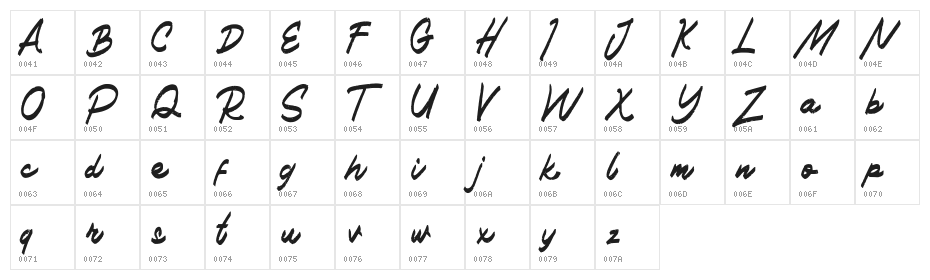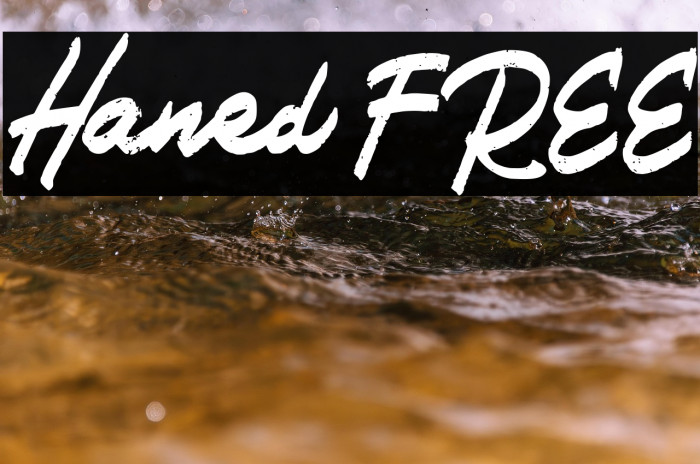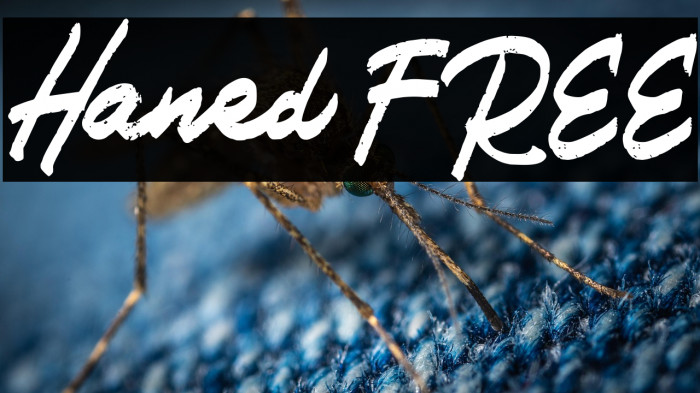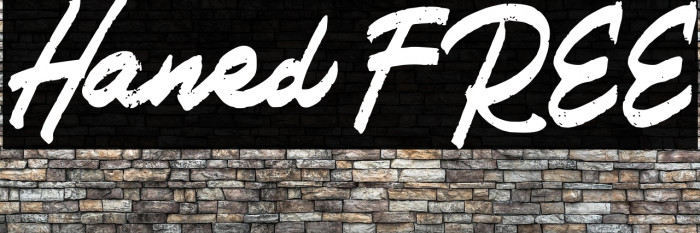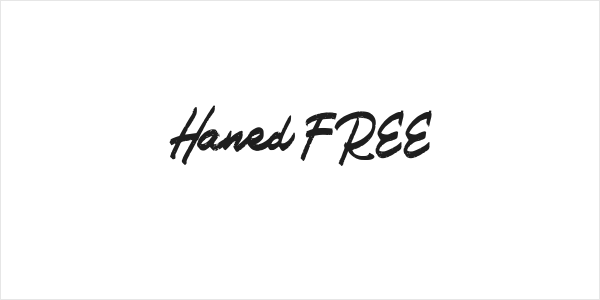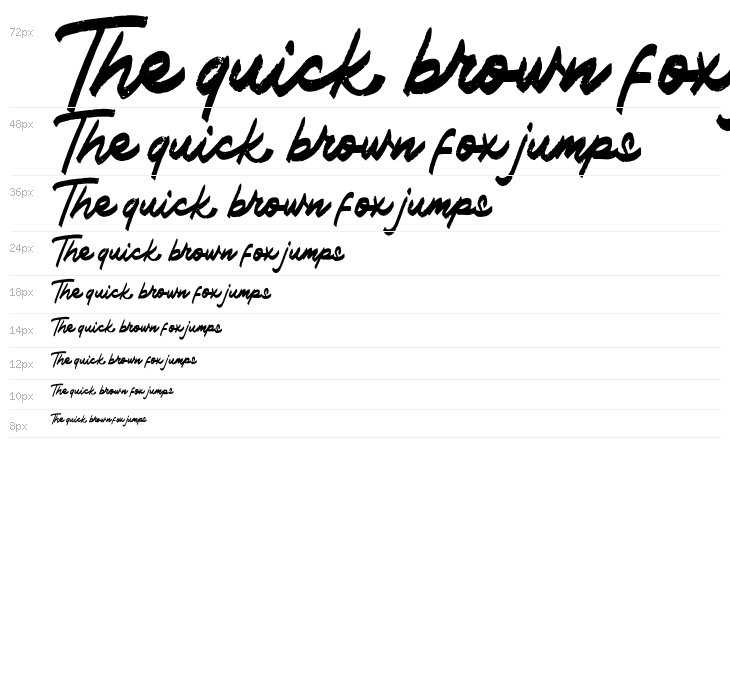
Haned FREE Font
Haned FREE Description
This font features a bold, handwritten style with a dynamic and energetic appearance. The strokes are thick and textured, giving it a rough, organic feel. The characters are slightly slanted, adding a sense of movement and fluidity. The uppercase and lowercase letters maintain a consistent style, with a playful and informal touch. The font's unique texture and boldness make it stand out, ideal for projects that require a personal and expressive look.
| Use Case | Logos, Headlines, Posters |
| Proposed Projects | Ideal for branding, posters, social media graphics, and any project that requires a personal and expressive touch. |